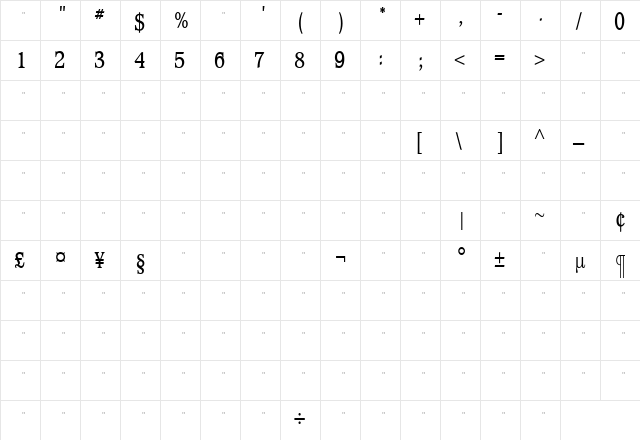
WaverlyMediumCondensedTab Roman
Design Context for WaverlyMediumCondensedTab Typeface
WaverlyMediumCondensedTab offers clean, dependable letterforms without strong stylistic allegiance, making it a practical choice for designers who need flexibility. The condensed width makes it efficient for tight spaces without sacrificing legibility.